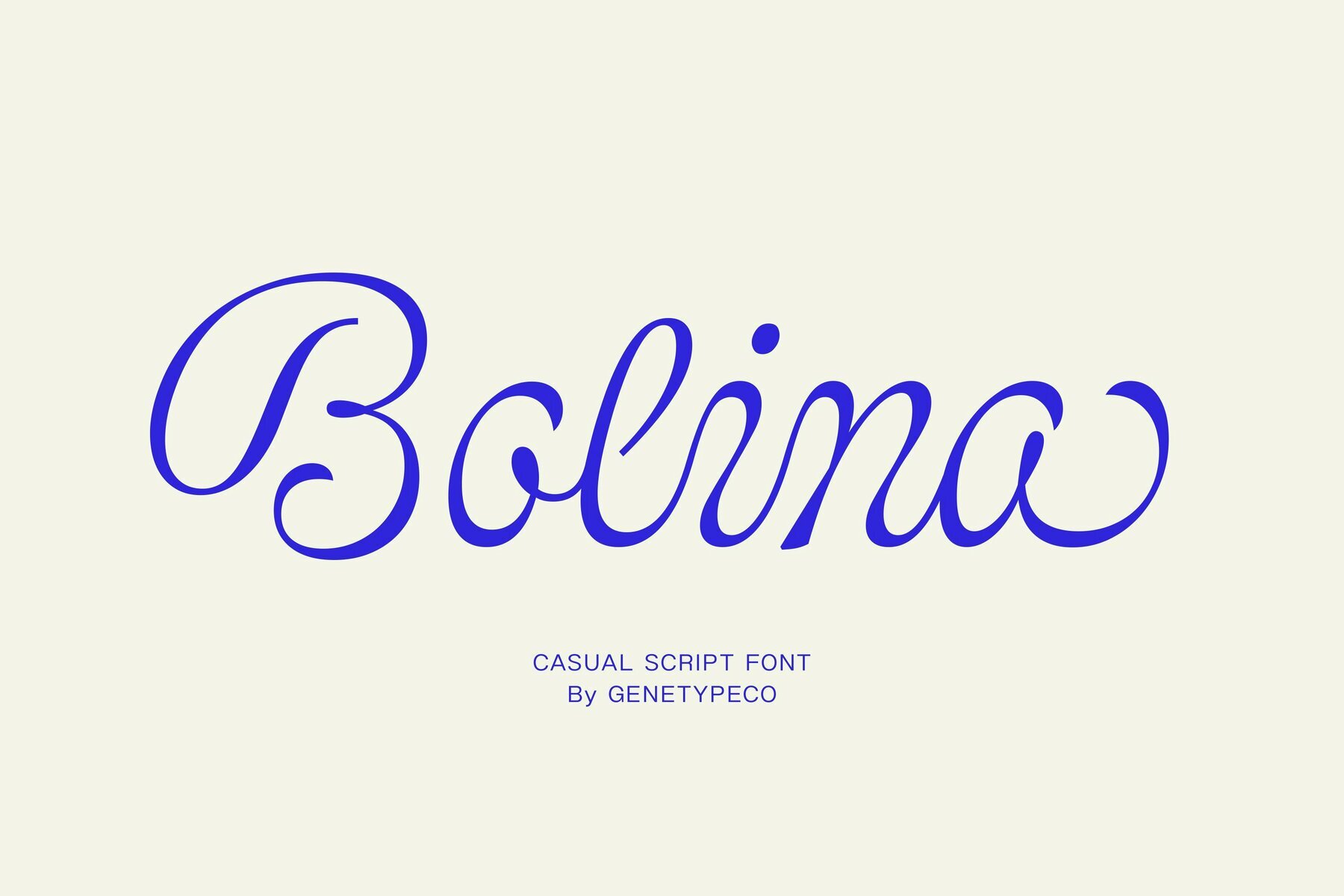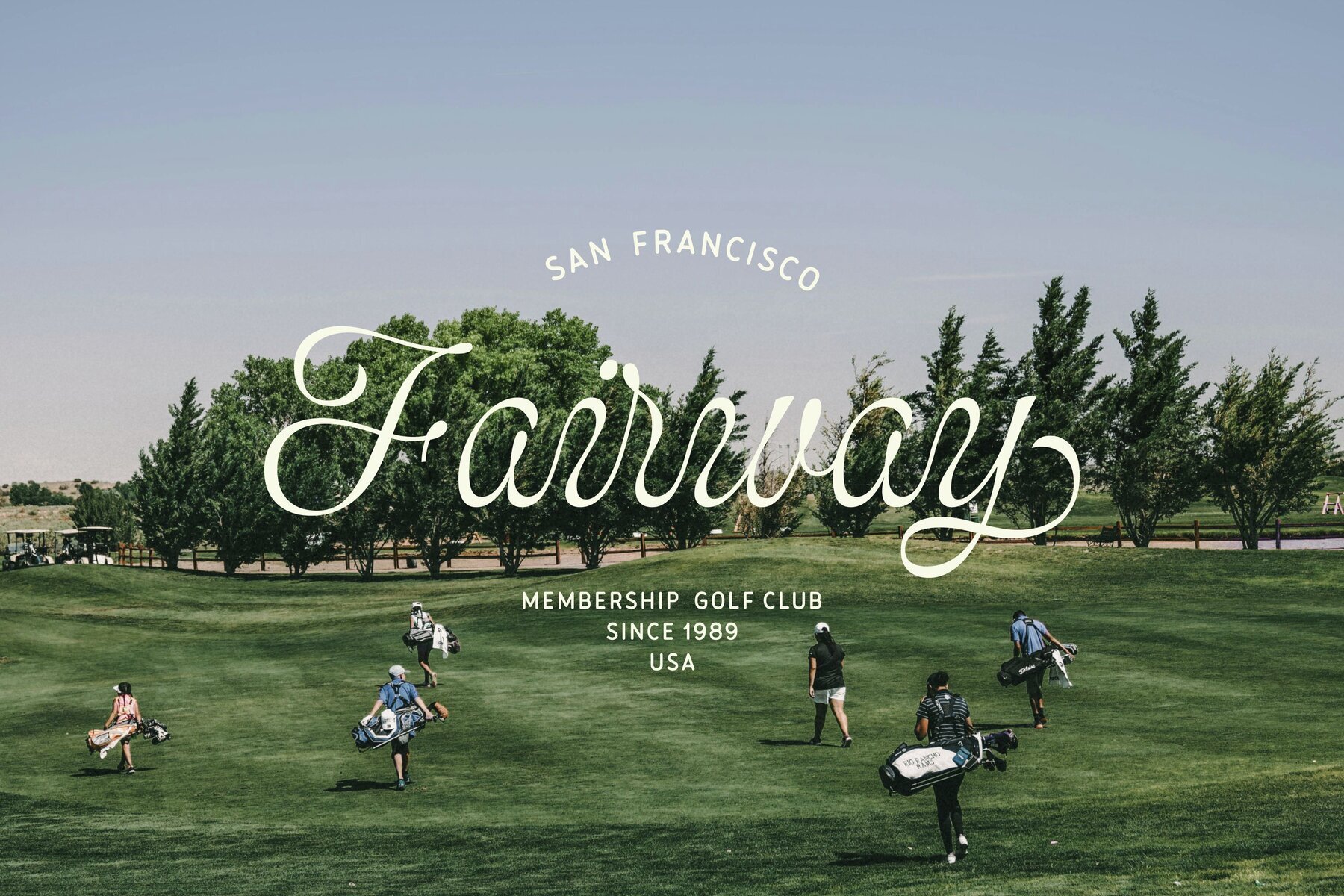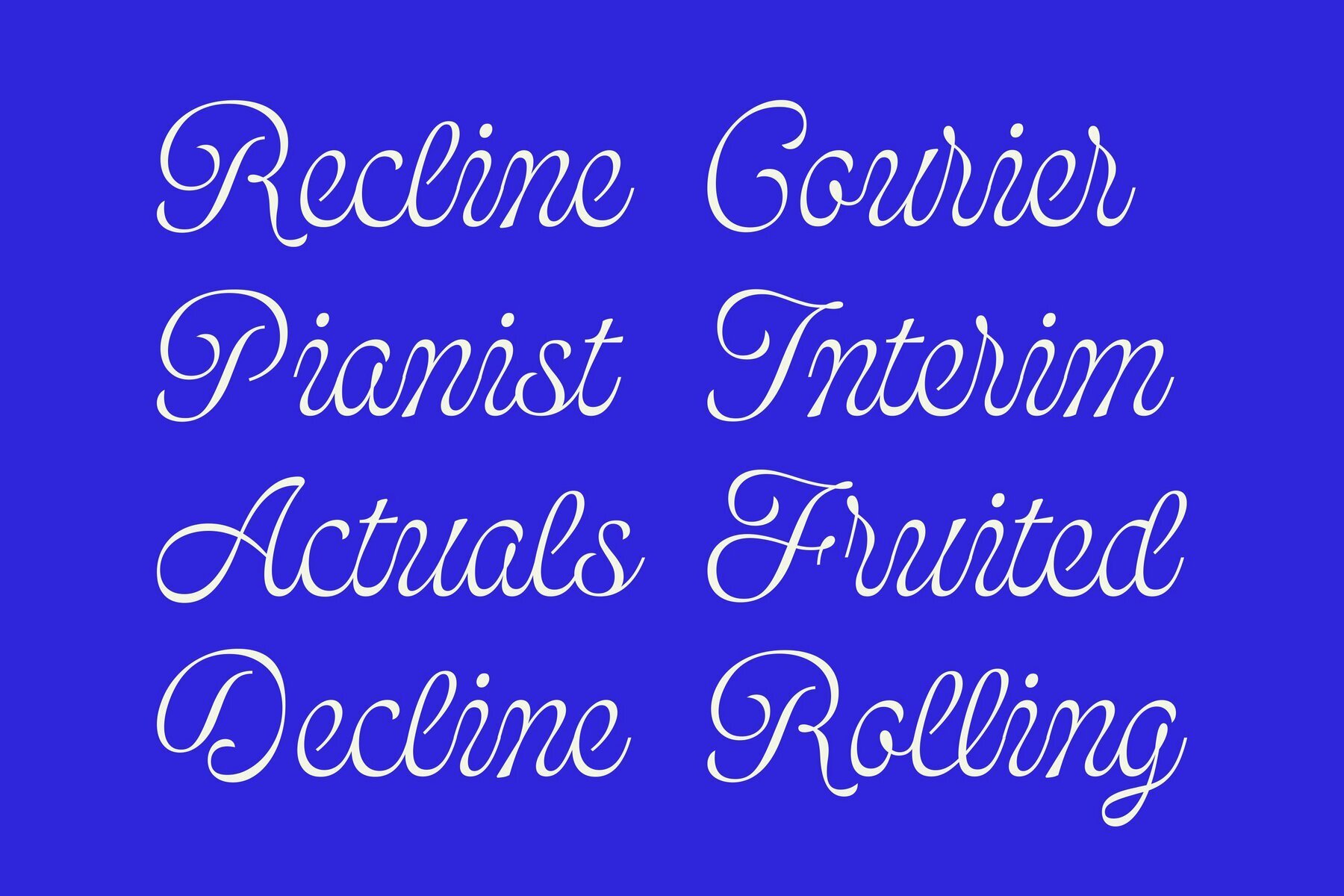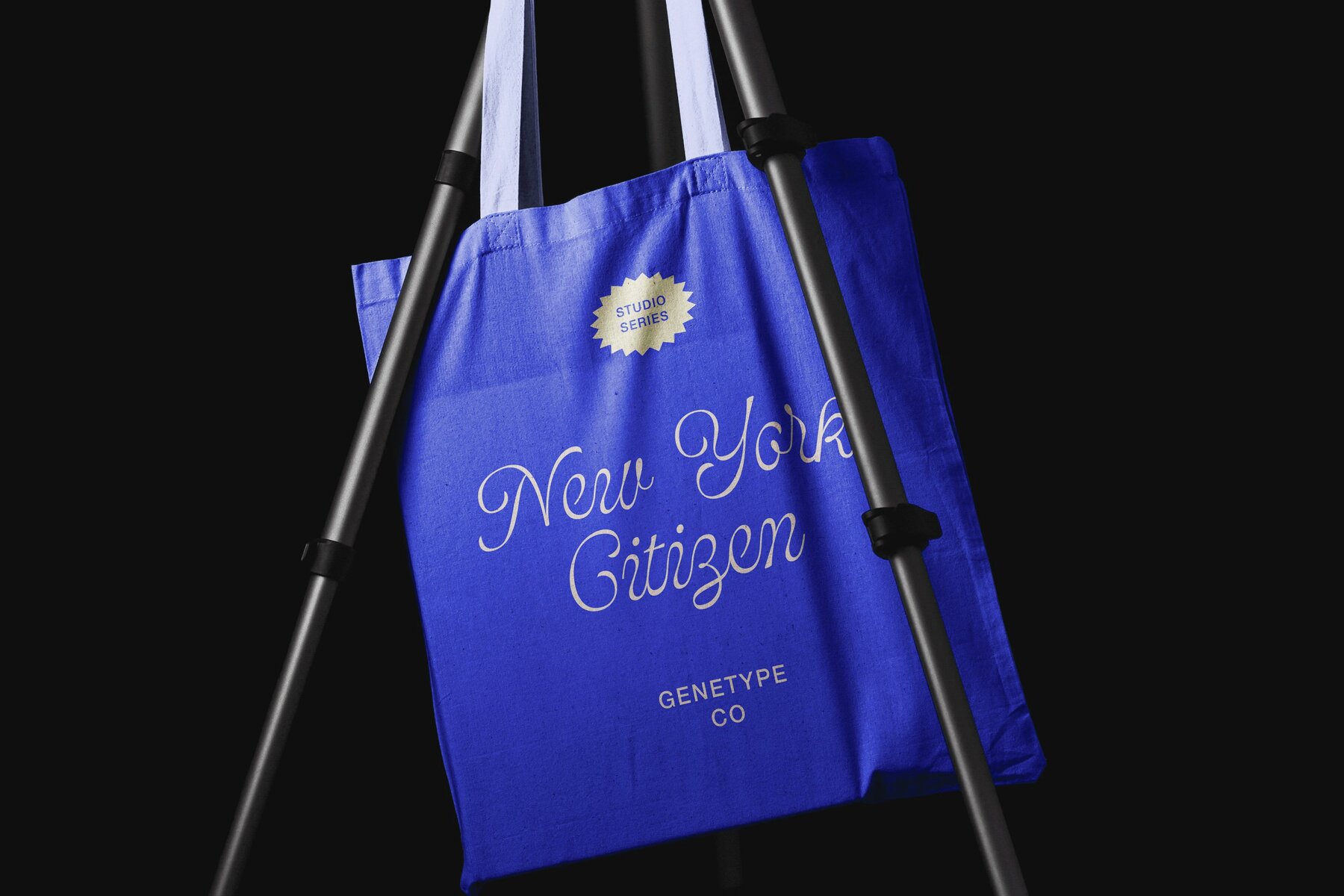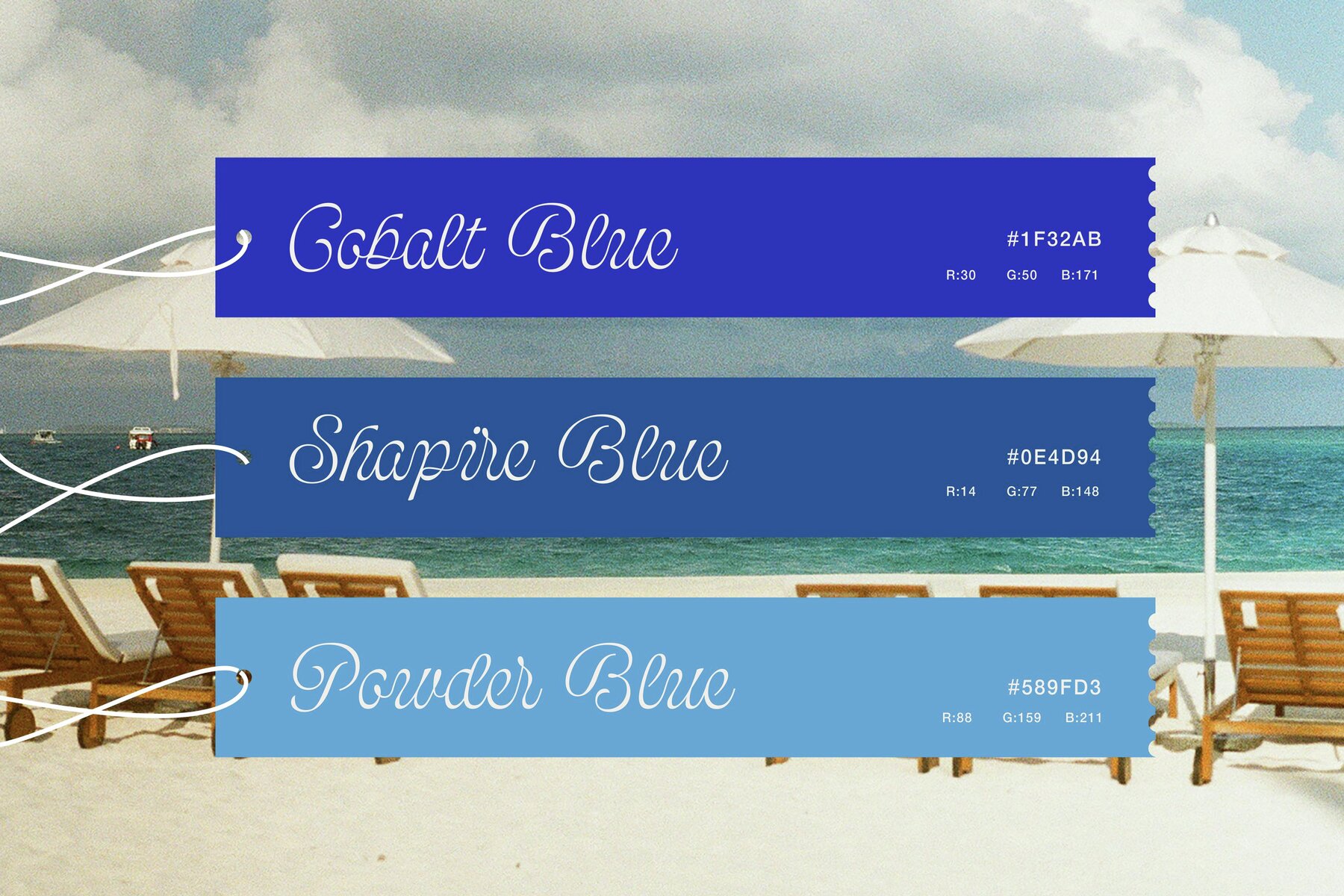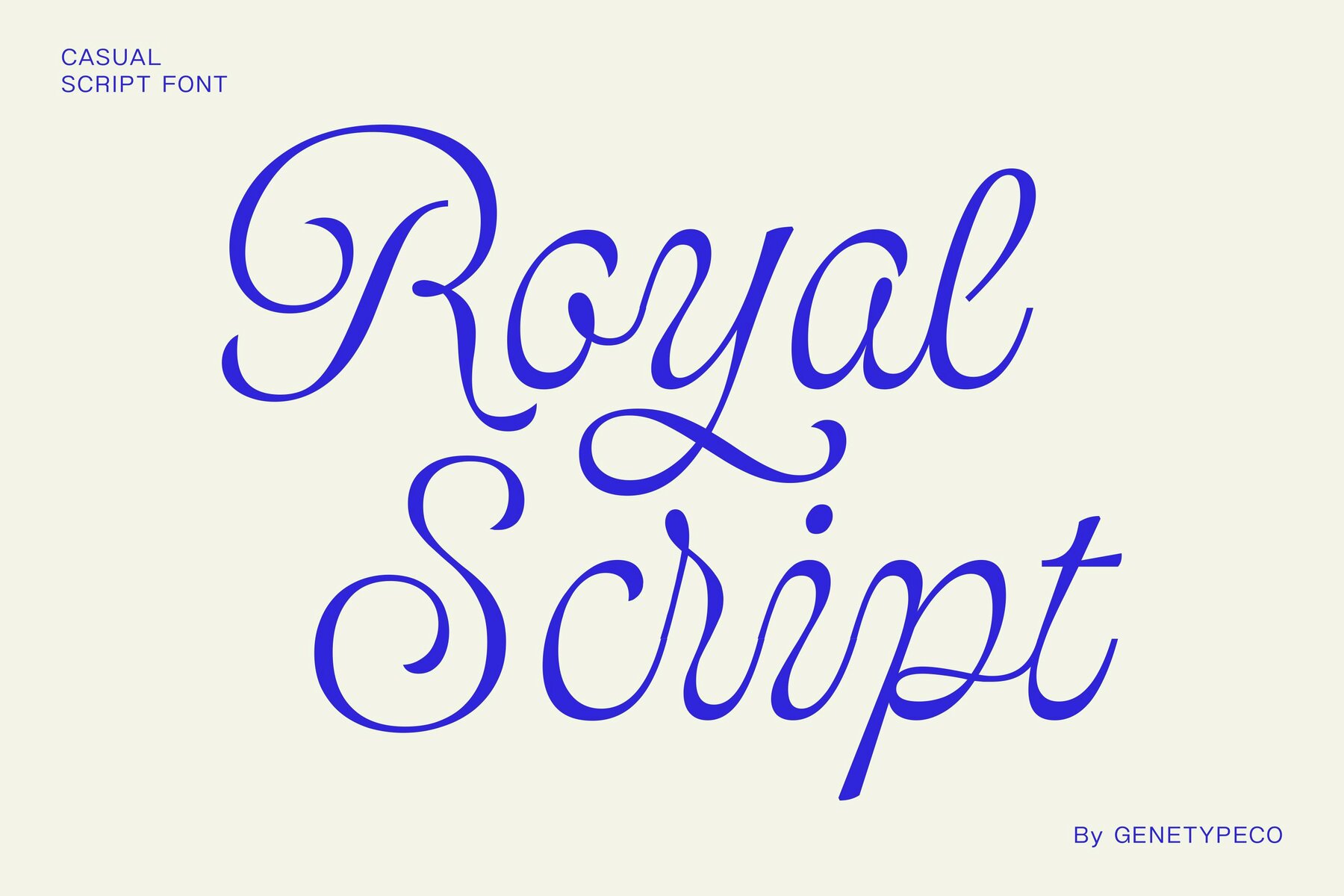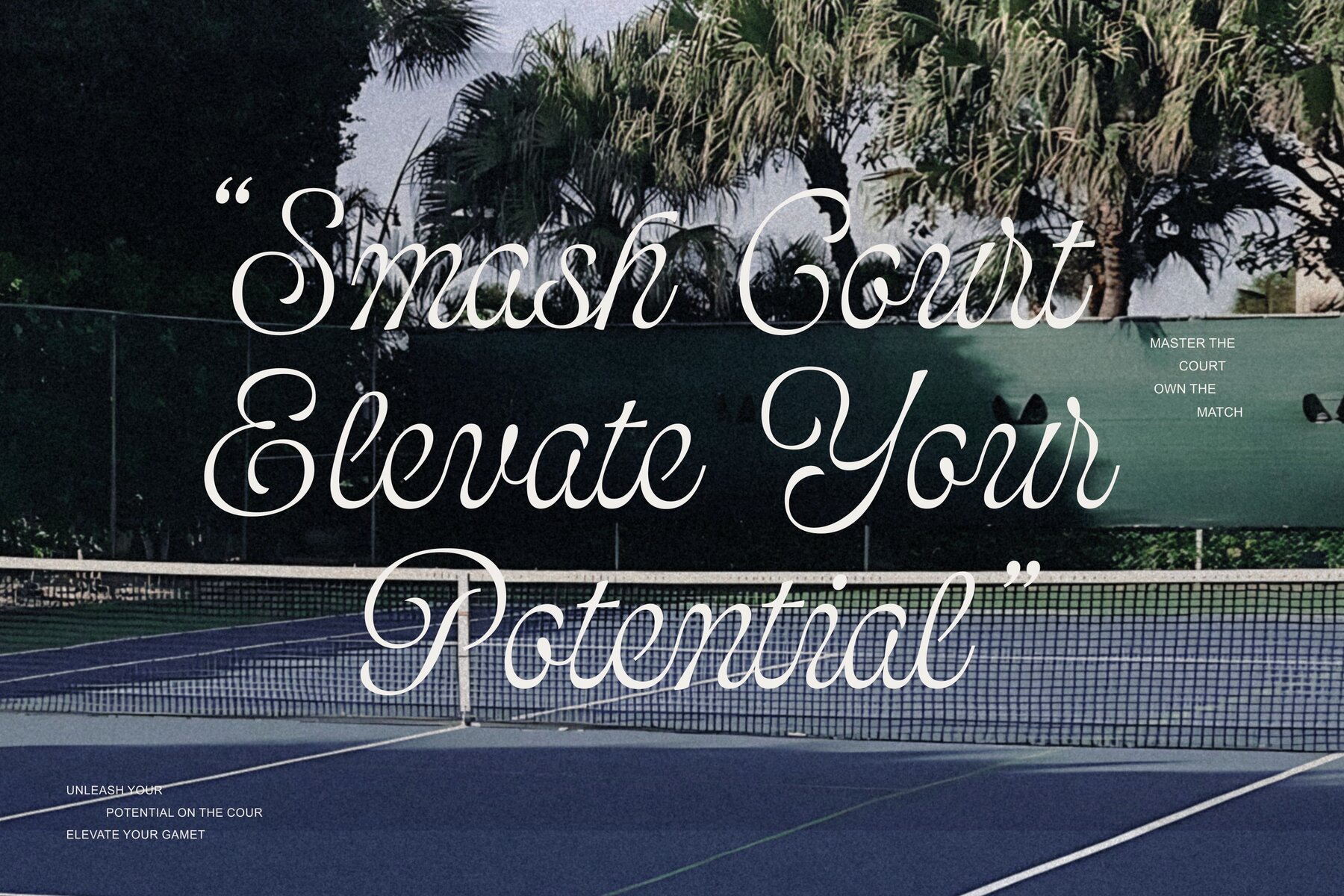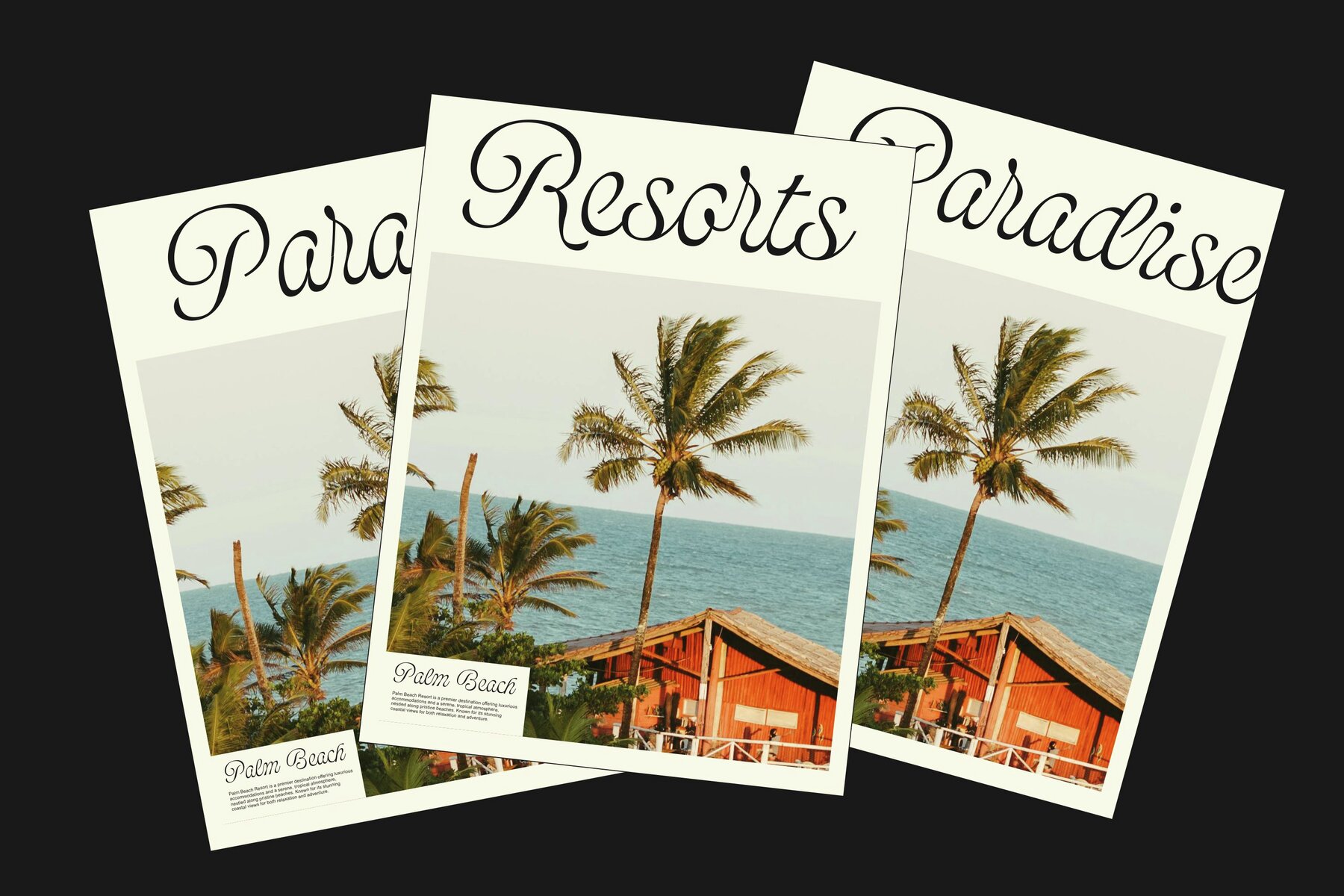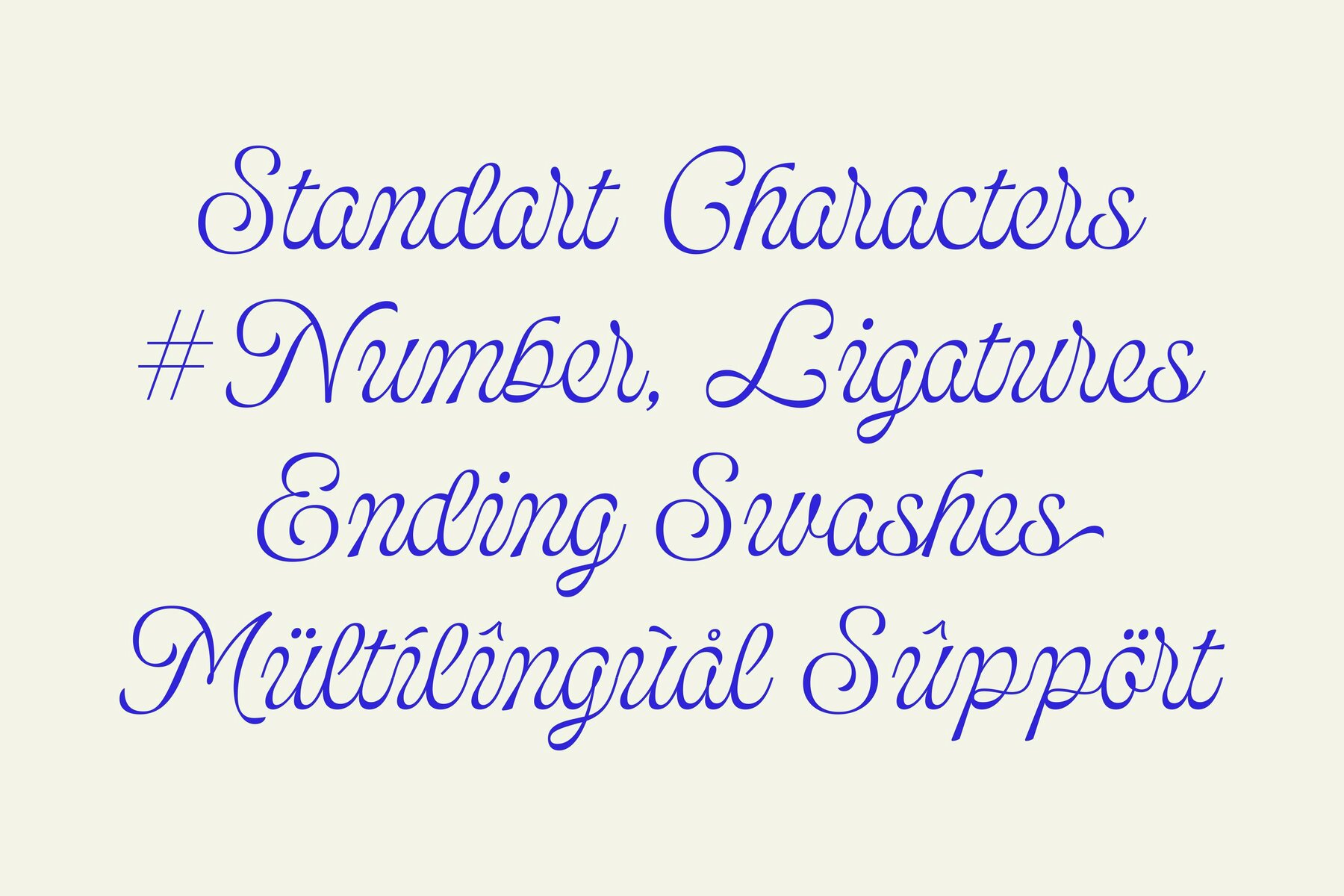
Bolina Font
Bolina Regular
Embodying a casual elegance, Bolina is a modern script font that strikes a balance between style and ease. Its clean lines and laid-back character make it ideal for a variety of applications, from branding and logos to invitations and social media graphics. Bolina's versatility injects a fresh and lively vibe into any design, offering a personal touch that resonates with creativity and flair.Bolina: A Relaxed and Versatile Script